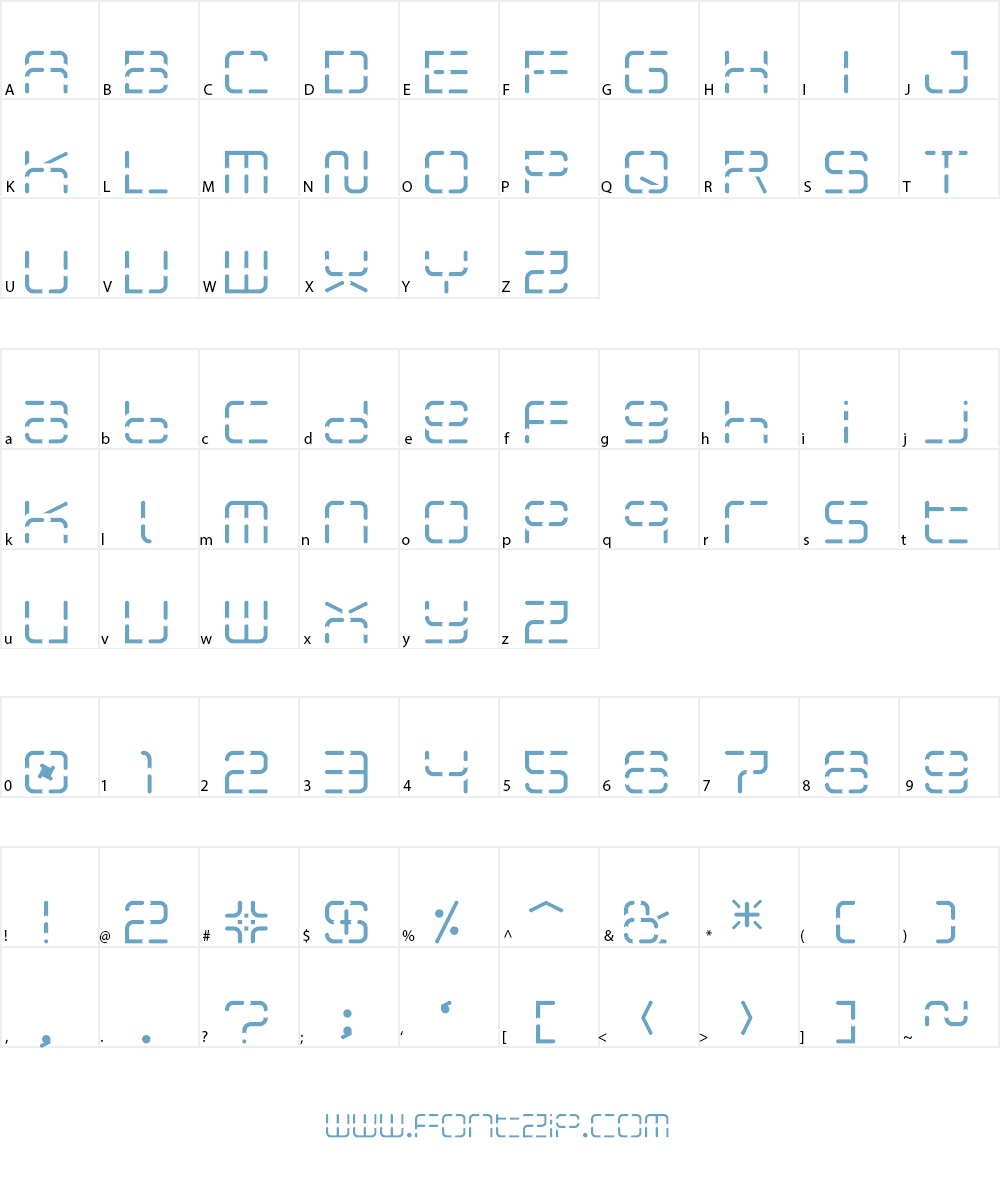
An experimental sliced sans serif. My goal here was to make a design which would result in an extremely compact and durable physical stencil. If anyone ends up constructing this stencil, I'd love to see it! I don't own any CNC tech myself...